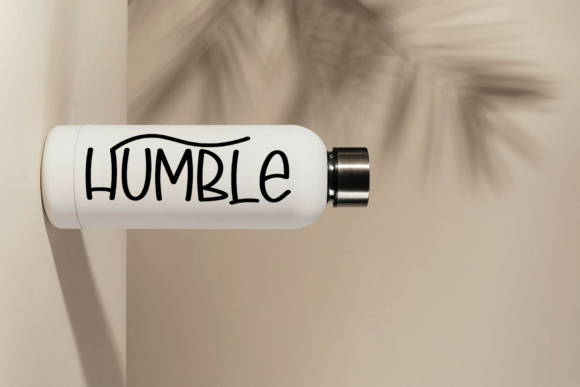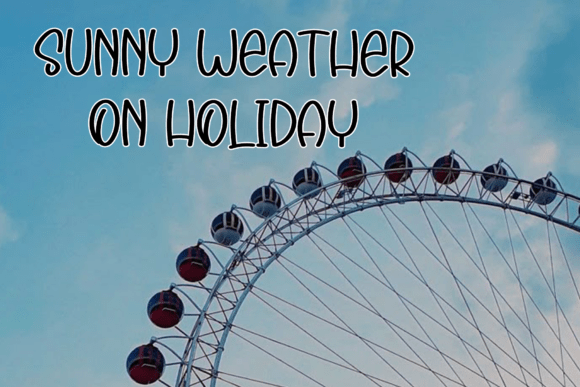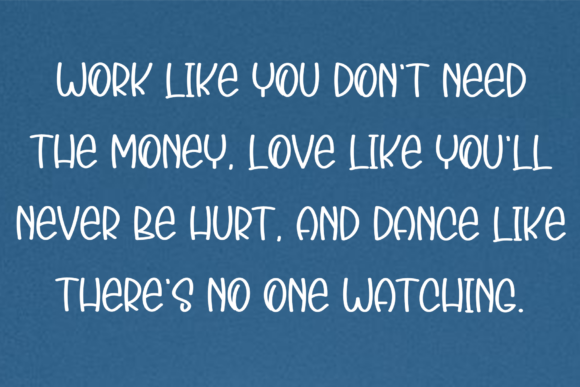
Introduction to Hocky Font
Hocky is a charming handwritten font imbued with a sense of freshness and casual elegance.
Its fluid strokes and organic lines evoke a laid-back vibe, making it perfect for various design projects Whether used for branding, invitations, or social media graphics, Happy Birthday adds a touch of warmth and personality.
Hocky Font offers exceptional quality and versatility, making it a valuable addition to your design toolkit. Whether you’re creating for personal projects or commercial use, Hocky Font delivers professional results.